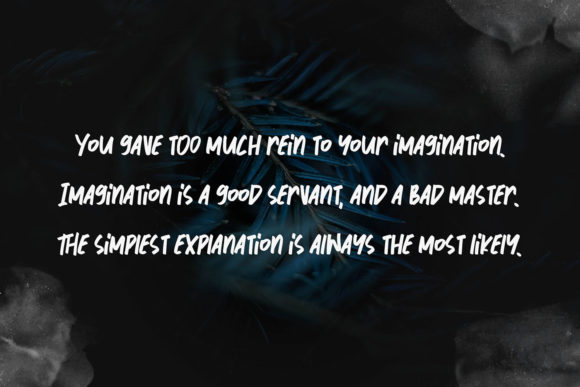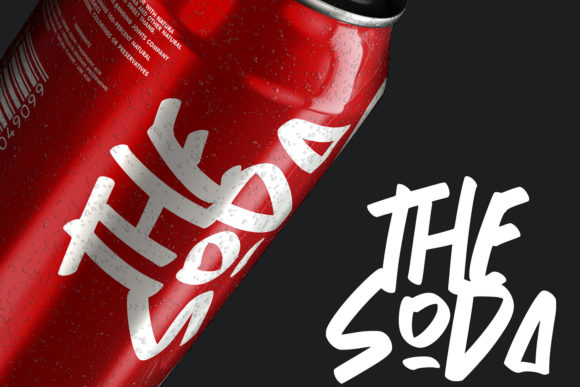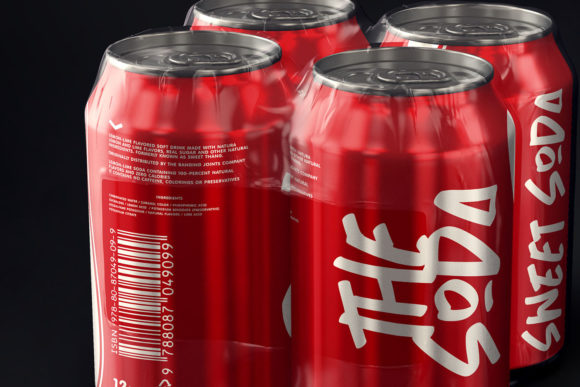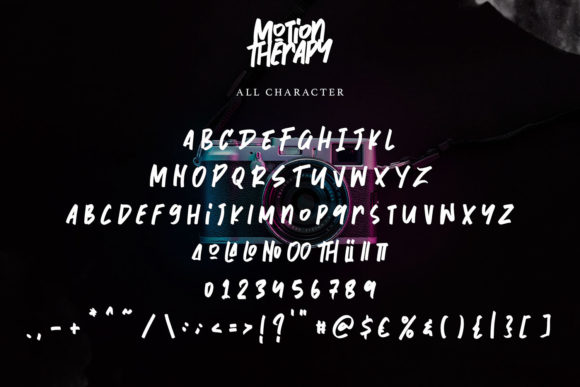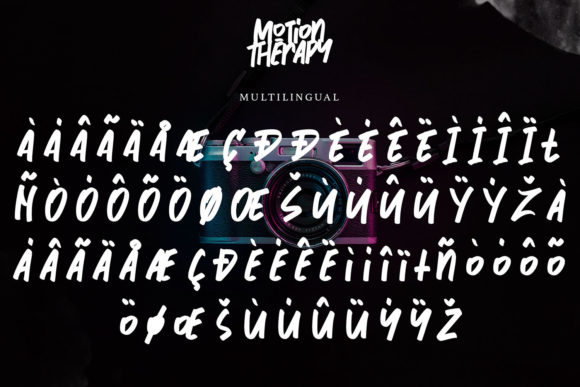
Introduction to Motion Therapy Font Font
Fonts play a crucial role in design, and the Motion Therapy Font font is a typeface that brings both character and versatility to any project. Whether you’re working on a branding project, a website, or a print design, the Motion Therapy Font font offers a unique style that can elevate your work.
Motion Therapy is a simple and quirky handwritten font.
It will add an incredibly joyful touch to your designs Add this beautiful display font to each of your creative ideas and notice how it makes them stand out.
Key Features of Motion Therapy Font Font
Why Choose Motion Therapy Font Font?
The Motion Therapy Font font is more than just a typeface – it’s a design tool that helps you communicate your message with style and clarity. Its unique character set and versatile design make it suitable for a wide range of applications, from elegant invitations to bold headlines.
With its carefully crafted letterforms and balanced proportions, the Motion Therapy Font font ensures readability and visual appeal across all mediums.
What makes Motion Therapy Font font special?
The Motion Therapy Font font stands out with its unique design, exceptional readability, and versatility across various design applications.